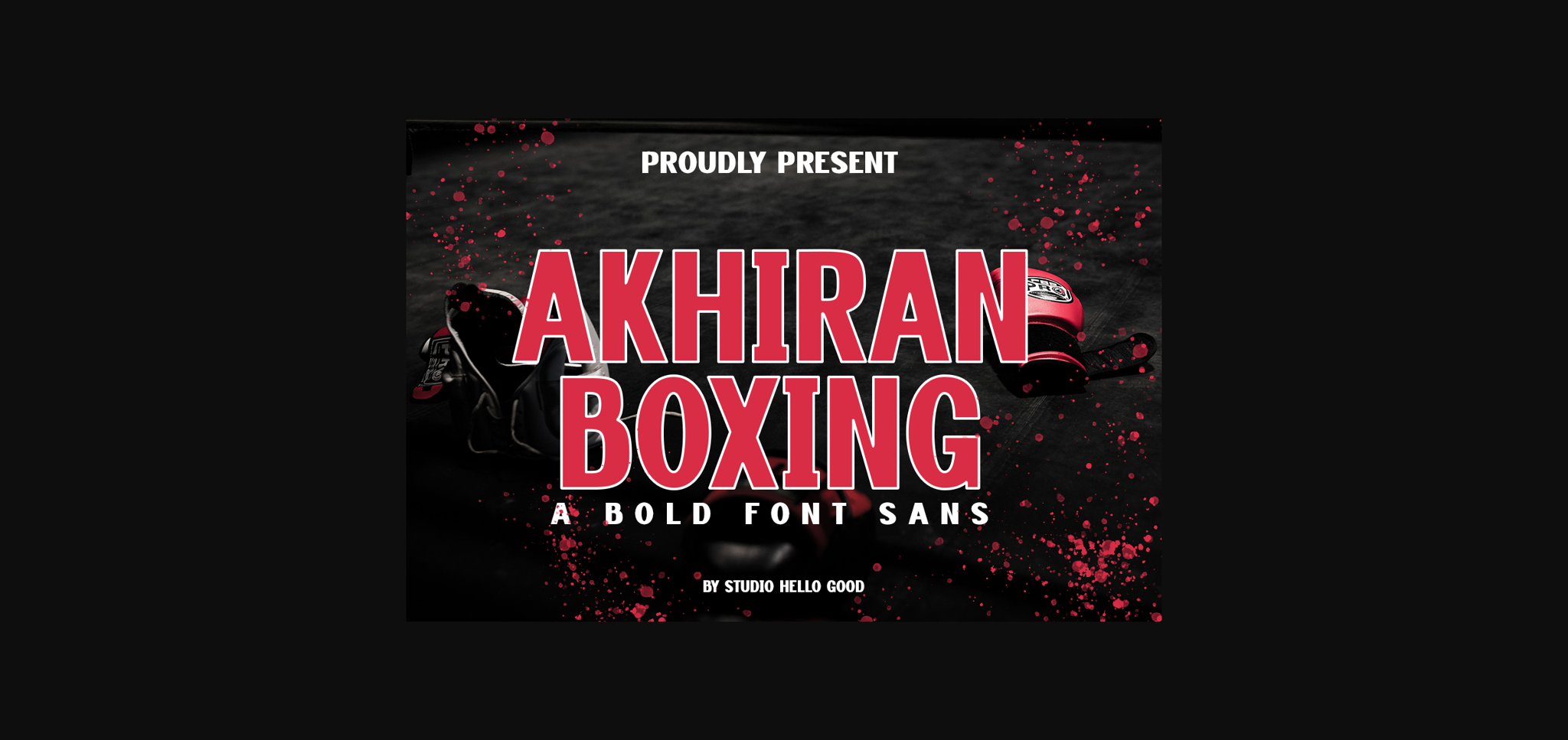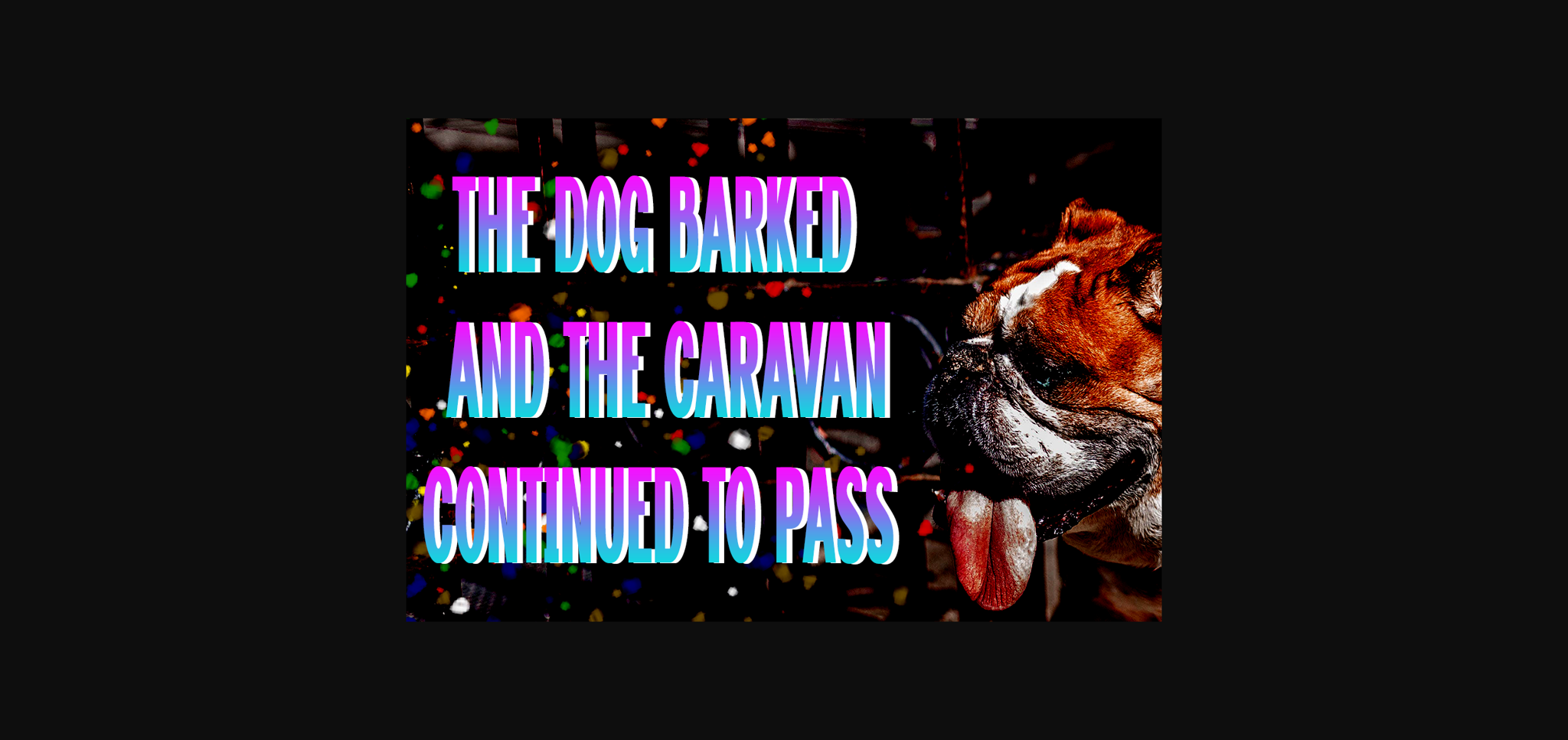
About Akhiran Boxing Font
Introducing Akhiran Boxing, a bold and dynamic font meticulously crafted to command attention in the realms of sports, displays, and banners. Engineered for impact, this font exudes strength and power, making it the ideal choice for projects that demand a strong visual presence.
Akhiran Boxing’s bold style is perfectly suited for sports-related content, creating a robust and energetic vibe. Whether used in titles for sports events, team banners, or motivational quotes, this font amplifies the competitive spirit and intensity associated with athletics, leaving a lasting impression on your audience.
In the realm of displays and signage, Akhiran Boxing stands out with its commanding presence. The strong, thick strokes of the font ensure high visibility, making it a go-to choice for attention-grabbing banners, posters, and promotional materials. Whether promoting an event, sale, or showcasing important information, Akhiran Boxing demands notice and reinforces the messaging with its impactful design.
Akhiran Boxing’s bold style is perfectly suited for sports-related content, creating a robust and energetic vibe. Whether used in titles for sports events, team banners, or motivational quotes, this font amplifies the competitive spirit and intensity associated with athletics, leaving a lasting impression on your audience.
In the realm of displays and signage, Akhiran Boxing stands out with its commanding presence. The strong, thick strokes of the font ensure high visibility, making it a go-to choice for attention-grabbing banners, posters, and promotional materials. Whether promoting an event, sale, or showcasing important information, Akhiran Boxing demands notice and reinforces the messaging with its impactful design.